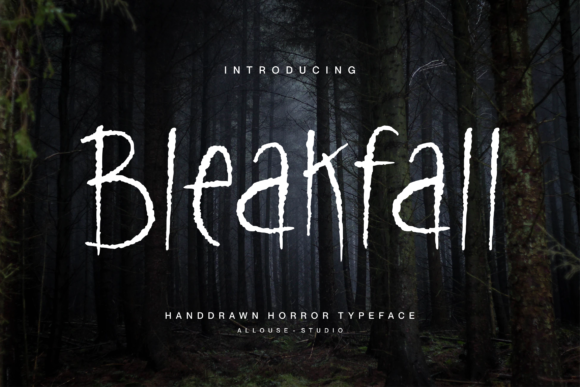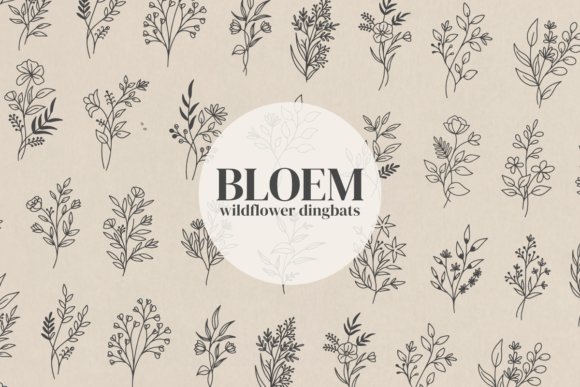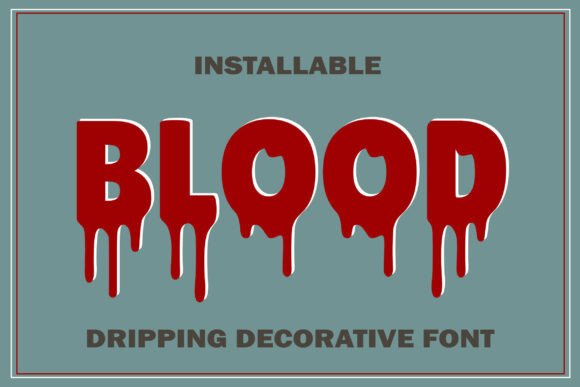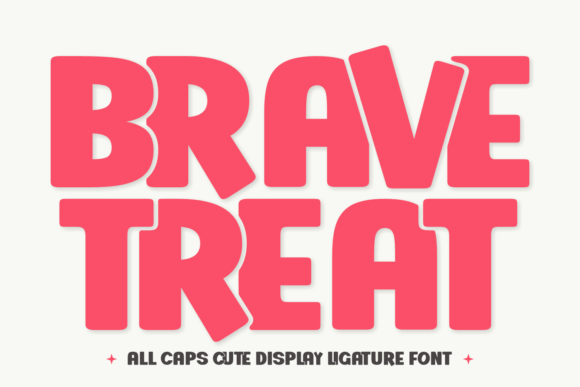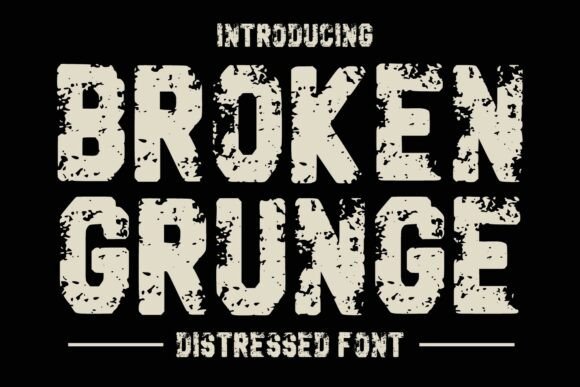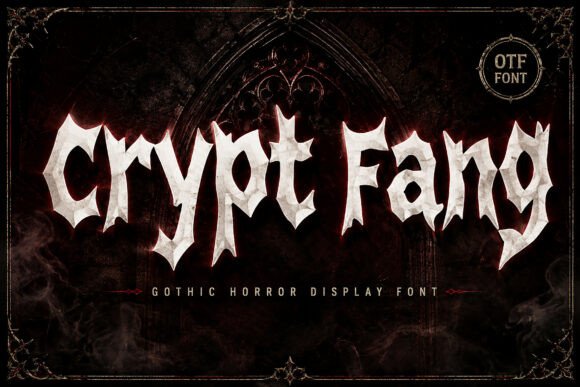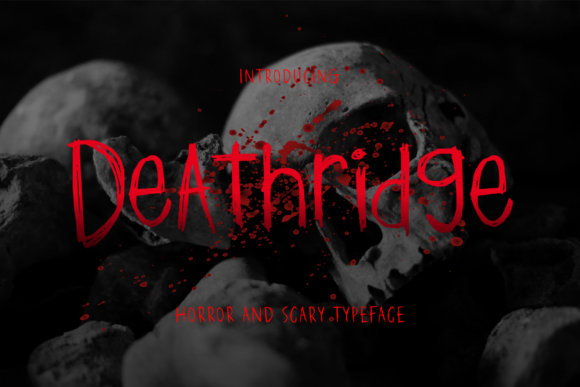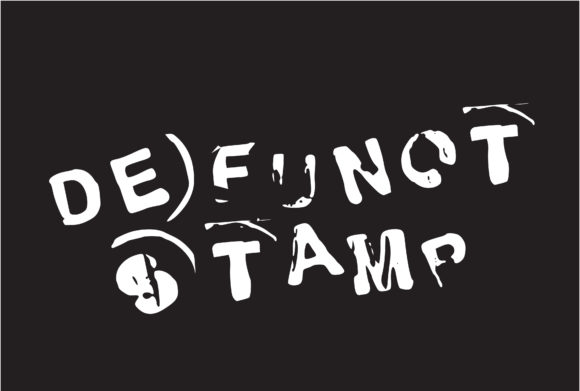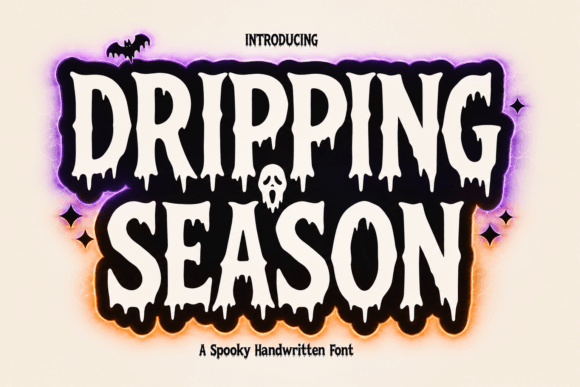
“Creepy” is not one look. A dripping slime headline and a scratched, degraded VHS title do completely different work, and picking the wrong one flattens whatever atmosphere you were building. Rather than dumping 25 creepy fonts into a numbered pile, this list is organised by the problem you are trying to solve, so you can jump to the section that matches your project and ignore the rest.
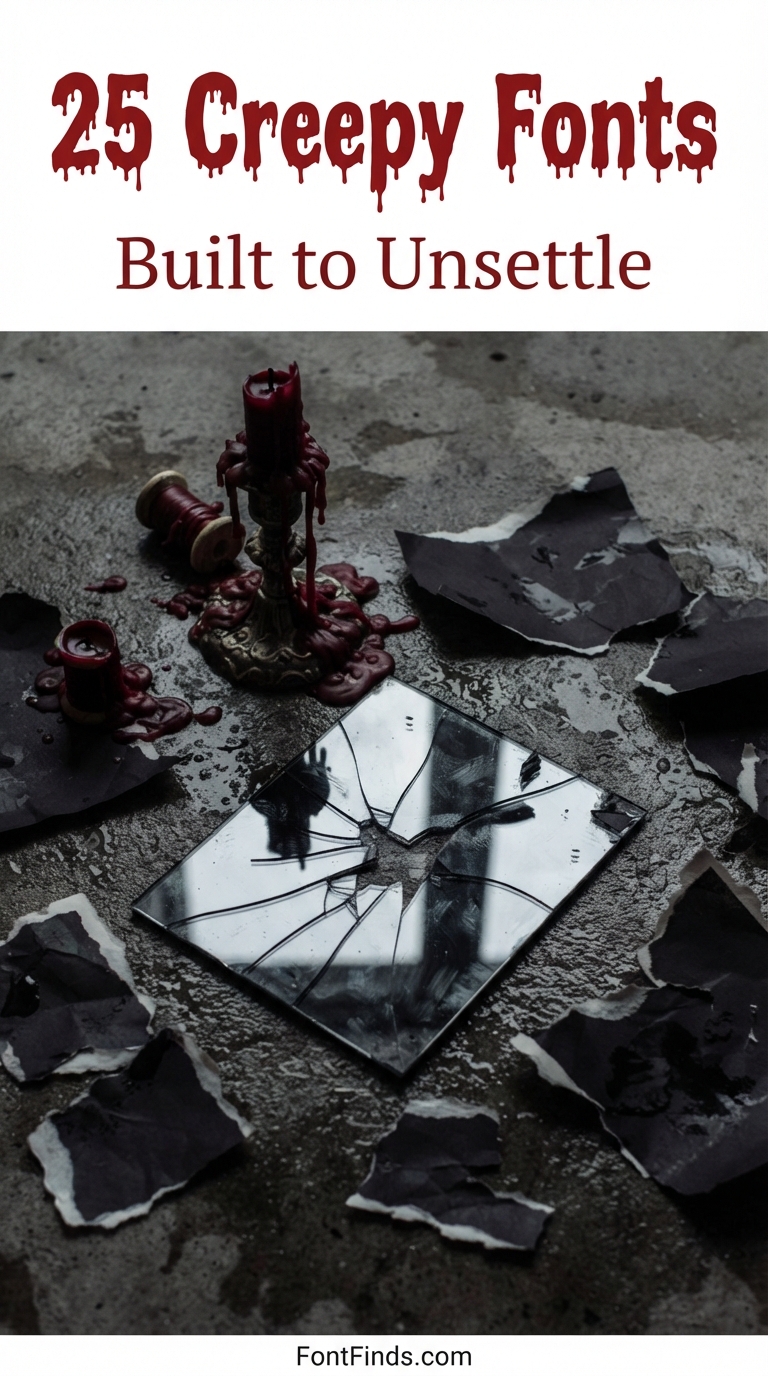
How to Choose Between Creepy Fonts
Horror typography works through association. Drips and melts suggest blood or decay. Rough, broken edges suggest damage and age. Sharp angular forms suggest threat. Before browsing, decide which of those three feelings your design needs, because mixing all of them in one layout produces noise rather than dread. Each group of creepy fonts below is built around one of those associations.
Problem: You need it to look like something is bleeding or melting
Drip and slime effects. Loud, literal, and effective on posters and merch.
Slime Drip
Slime Drip is a bold Halloween display font featuring thick, rounded letters with creepy melting slime drips.
Dripping Season
Dripping Season – Spooky Halloween Dripping Display Font Bring your Halloween projects to life with Dripping Season, a bold and spooky display font inspired by horror movies, haunted houses, ghosts, monsters, and creepy Halloween nights.
Blood Drip
Blood Drip is a bold and dramatic decorative font inspired by dripping liquid effects.
Broken Grunge
Broken Grunge is a bold and rugged distressed display font crafted for designers who want to make a powerful statement.
Horror Season
Horror Season Halloween Font | Cute Ghost Dripping Display Font | Spooky Decorative Typeface + Bonus EPS Graphics Horror Season is a cute Halloween display font featuring playful dripping letters, adorable ghost-inspired details, spooky decorative elements, and bonus Halloween graphics.
Midnight Creepy
Midnight Creepy is a terrifyingly bold Halloween font that drips with eerie style.
Defunct Stamp
Defunct Stamp is a creepy looking, interesting and unique display font. Add it to various designs that require a spooky touch, such as Halloween designs or scary movie titles.
Problem: You want it to feel old, damaged, or found
Grunge textures and broken edges for a decayed, unearthed look.
Brusher
Brusher is a creepy and dark looking display font. It is perfectly suitable for any Halloween-related project or crafty idea!
Impressions
Impressions is a creepy and dark looking display font. It is perfectly suitable for any Halloween-related project or crafty idea!
Deathridge
Deathridge is a horror display font ideal for products looking for a scary appearance or for the Halloween season.
Bloody Frozen
Bloody Frozen is a fun, thick lettered and cool display font.
Wicked Ghouls
Wicked Ghouls – Cute & Playful Halloween Display Font Add a touch of playful magic and “cute but creepy” charm to your seasonal creations!
Poultrygeist
Poultrygeist is an amazing display font with two styles that will help your product stand out through its spooky and curvy lines.
Night Mare
Night Mare is a fun and playful duo font (display and dingbats) with a scary horror theme.
Problem: The design needs threat without the mess
Sharp, angular, and restrained. Suited to branding that has to work year-round.
Vampire
Vampire Display Font – A Dark Gothic Horror Typeface for Halloween Designs Introducing Vampire Display Font, a bold gothic display typeface inspired by classic vampire legends, haunted castles, moonlit nights, and dark fantasy.
Gincu
Gincu is an energetic charcoal handwritten font that is suitable for several moods such as power, horror and chalkboard.
Crypt Fang
Crypt Fang is a sharp and dramatic gothic display font created for dark, mysterious, and horror-inspired designs.
Sandbox Steel
Sandbox Steel is a clean and robotic styled display font. It is ideal for writing web designs, business cards, or pretty much anything else that requires a cool touch.
Bloem
Bloem is a unique and beautiful botanical wildflower dingbats font.
Gypsy Moon
Gypsy Moon is a spooky, heavy weight display font. The characters have different sizes and have pointy edges.